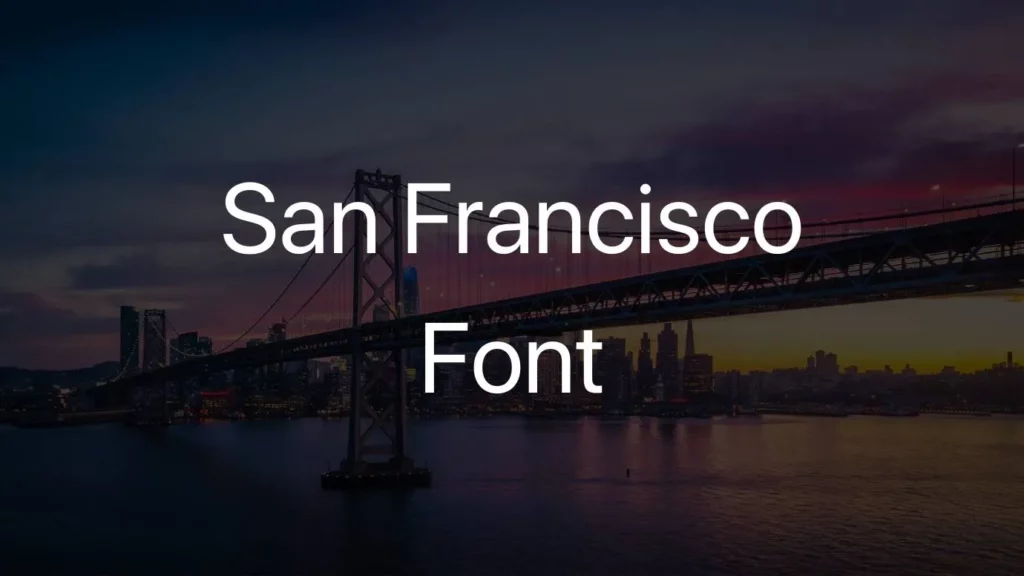
San Francisco Font is a sans-serif style that was created by Susan Kare. This typeface could be an awesome choice for any venture that needs a touch of sentimentality.
You can combine this font with the couture sans serif font and make elegant projects. It is extensively utilized to create beautiful backgrounds. The font corresponds to often utilized by creators to create their designs look lovely. Because the look is extremely amazing. It is extensively utilized to create beautiful backgrounds.
There are a variety of ways to use this style for social media posts. It contains both upper- and lower-case letters, numbers, and some punctuation marks. The text style is flawless as long as each design demands a fun and unusual feel.
San Francisco Font Usage
This typeface is additionally extraordinary to work for your features and titling for your websites, brands, and company profiles and we are beyond any doubt simply get the forte to your websites or brands after utilizing this text style.
This priceless typeface is well-known all over the globe. The developers all laud this elegant typeface. This fantastic typeface was adopted by all creators on a variety of surfaces, including graphic novel layouts and graphic novels. It can also be used in titles and headings on websites and other design pages.
Preview Image of San Francisco Font
What kind of San Francisco texture?
This is a sans-serif typeface and the main designer is Susan Kare. It has a unique style that makes your projects look amazing.
Where can we use the San Francisco typeface?
You can use this typeface for a wide range of designs, including logos, artwork, brands, fashion, websites and blogs, theme designs, and visiting cards.